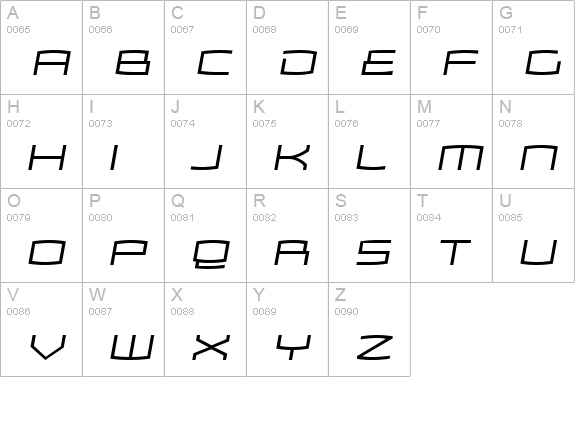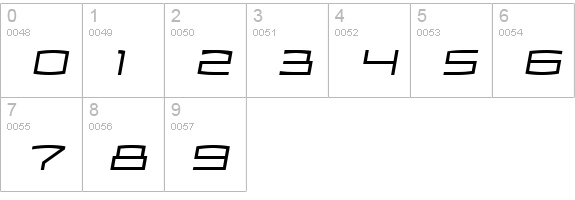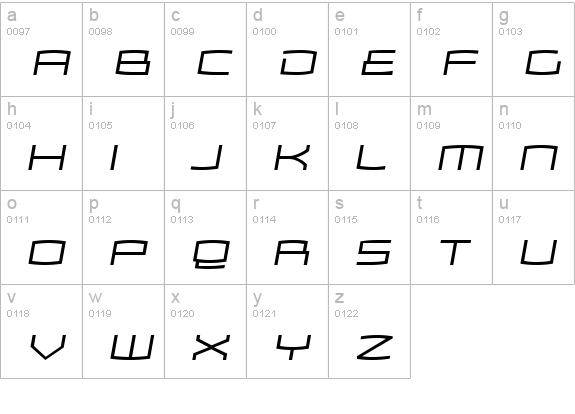
Zosma Light Italic is a refined, elegant, italic variant in the Zosma typeface family \xE2\x80\x94 well suited to elegant body text, refined sub-headings, and luxury branding.
Zosma Light Italic font is a modern and elegant typeface that exudes sophistication and style. Its sleek lines and delicate curves make it perfect for adding a touch of class to any design project. The light weight and italic styling give this font a sense of grace and refinement, making it ideal for use in branding, editorial design, and more. What's even better is that Zosma Light Italic font is available for free! You can easily download this gorgeous font at FontsMarket.com and start using it in your projects right away. Don't miss out on the opportunity to add this stunning typeface to your collection today.